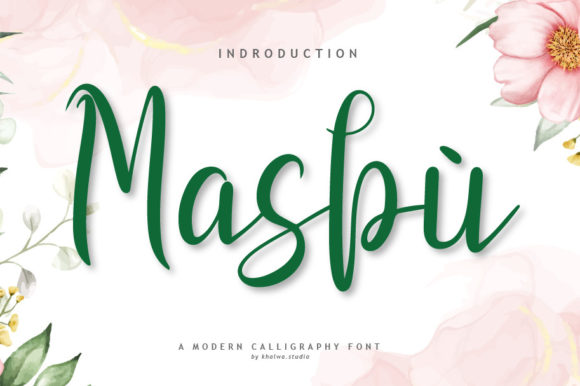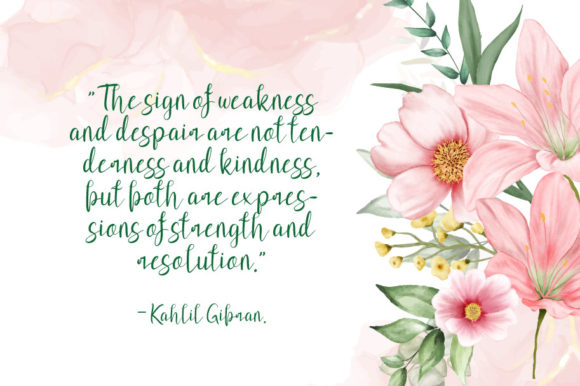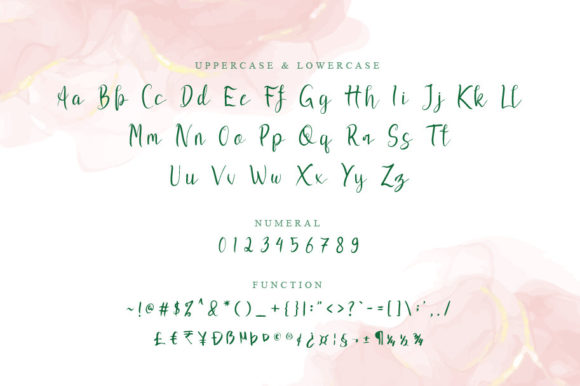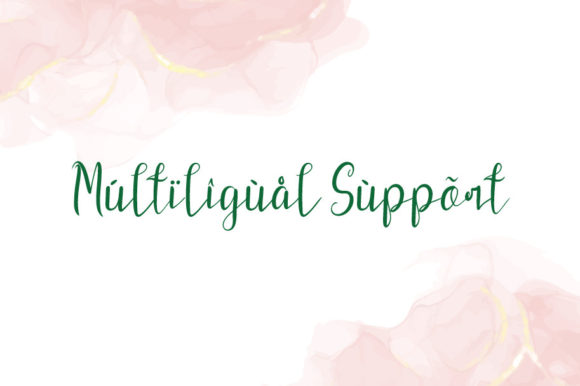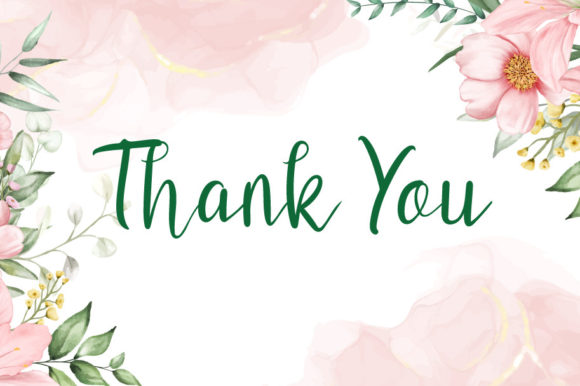
Masbù Font
About Masbù Font
Masbù Script is a lovely and timeless handwritten font. It is the best choice for creating eye catching logos, branding and quotes. Every letter has a unique and beautiful touch, which will make your design come alive!